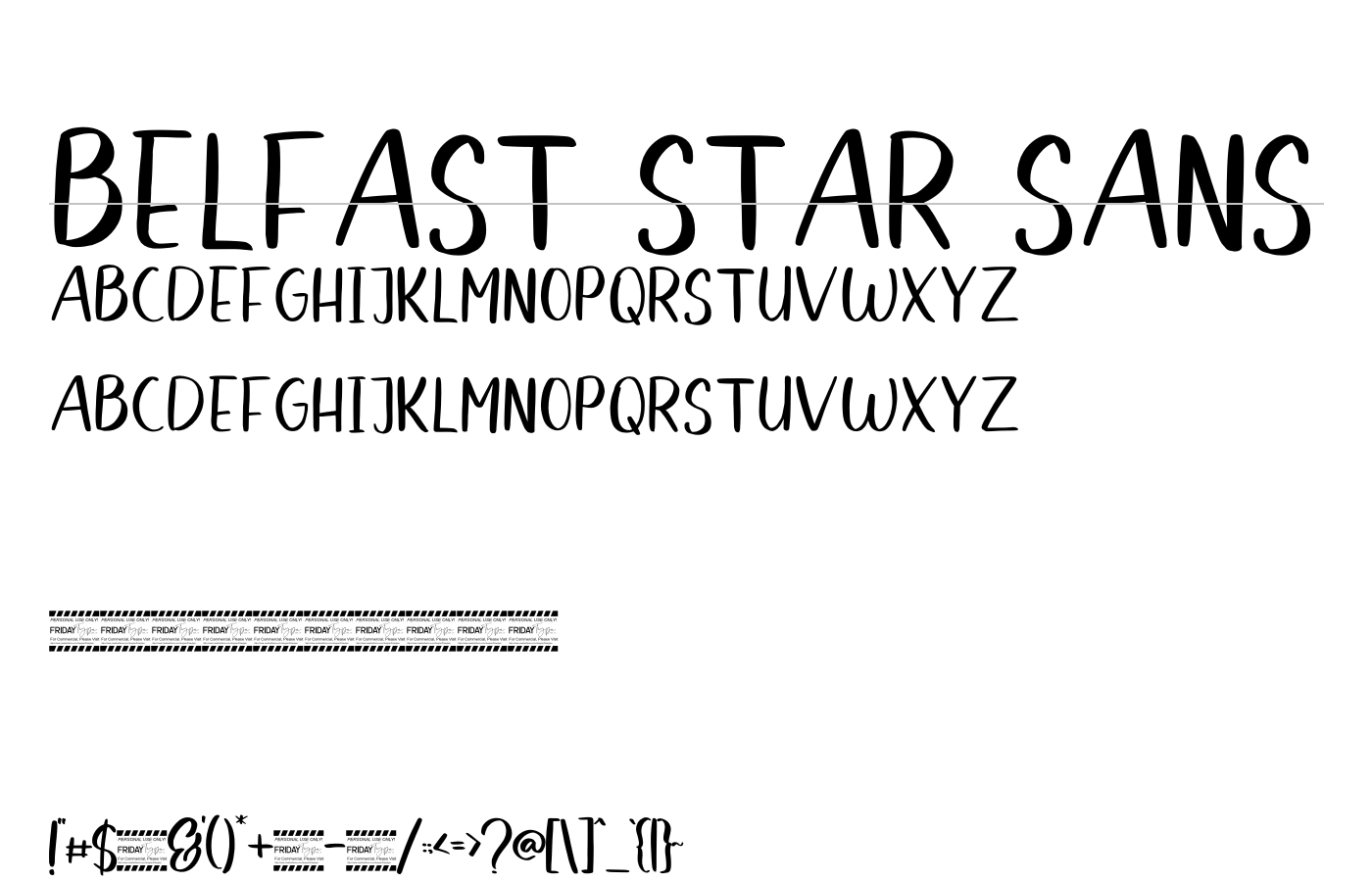
Belfast Star Sans is a playful, hand-drawn sans serif font with a casual and friendly feel. Its tall, slightly irregular letterforms and light weight give it a lively, approachable character that works well for creative projects, children's designs, and informal branding. This font is ideal for headlines, logos, and packaging where a warm, hand-crafted impression is desired.
Belfast Star Sans Font
About Belfast Star Sans Font
| Font family | Belfast Star Sans Font |
| Designer | Farida Kurniawan |